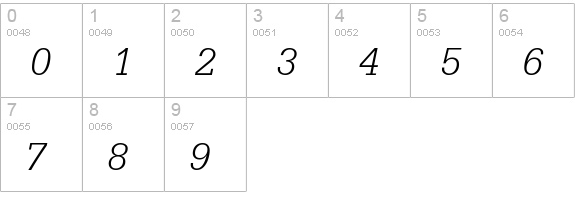
Centric Light SSi Light Italic Font Details
Centric Light SSi Light Italic is a refined, elegant, italic variant in the Centric typeface family \xE2\x80\x94 well suited to elegant body text, refined sub-headings, and luxury branding.
Centric Light SSi Light Italic font is a sleek and elegant typeface that adds a touch of sophistication to any design project. Its delicate slant and light weight create a sense of grace and modernity, making it perfect for conveying a sense of style and professionalism. The italic styling adds a hint of flair and personality to your text, making it stand out from the crowd. The best part? Centric Light SSi Light Italic font is available for free download at FontsMarket.com. This means you can easily access this beautiful font and use it in your projects without any cost. Whether you're designing a website, creating a logo, or working on a print project, Centric Light SSi Light Italic font is sure to elevate your design with its clean lines and contemporary look. Download it now and see how it can enhance your work!